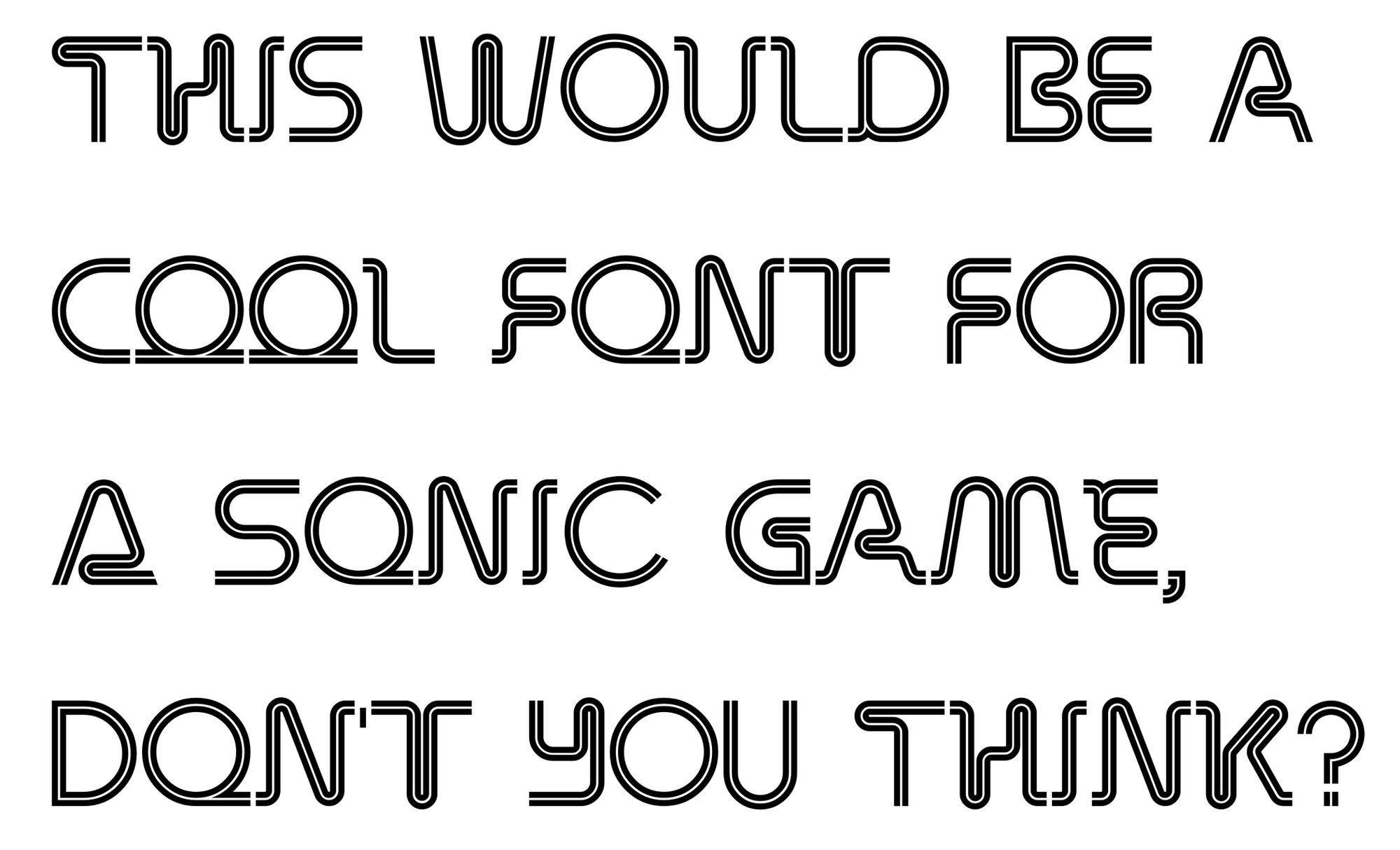
Yagi Double Font
Yagi Double Font - Part of the large yagi family released on robert trogman’s fotostar label in the late 1960s. Web designed by teruoki yagi [oka]. Selected by dan x solo from. Part of the large yagi family released on robert trogman’s fotostar label in the late 1960s to early ’70s. Web dxs yagi double regular free font.